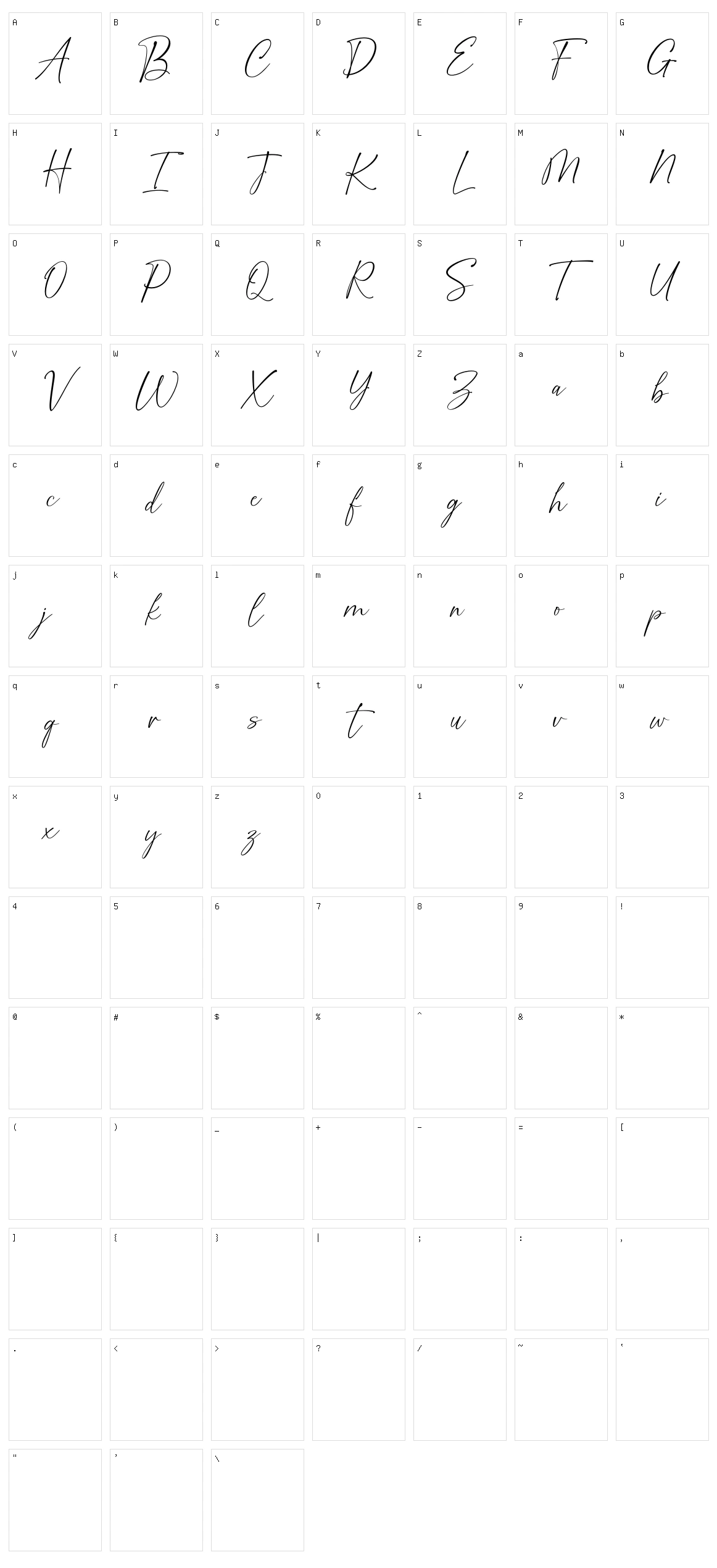
The free font Golden Dream is carefully designed by Ef Studio, showcasing a thoughtful balance of creativity and usability and falls under the Script font style. When you download the ZIP file, it contains only 51 KB of font files, making it lightweight and quick to download. Please review the license details below to understand permitted usage and distribution rights. If license information is not available, we recommend using this font for personal projects only or contacting the author directly for commercial usage permissions.